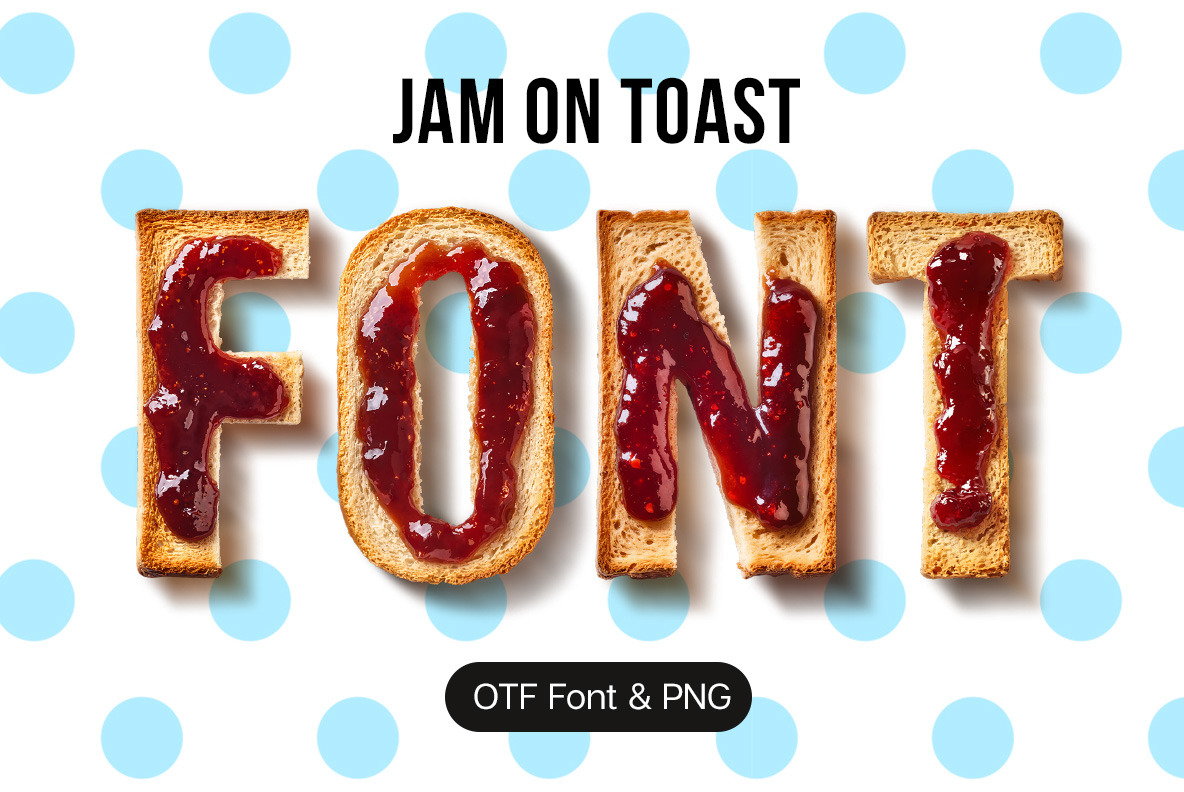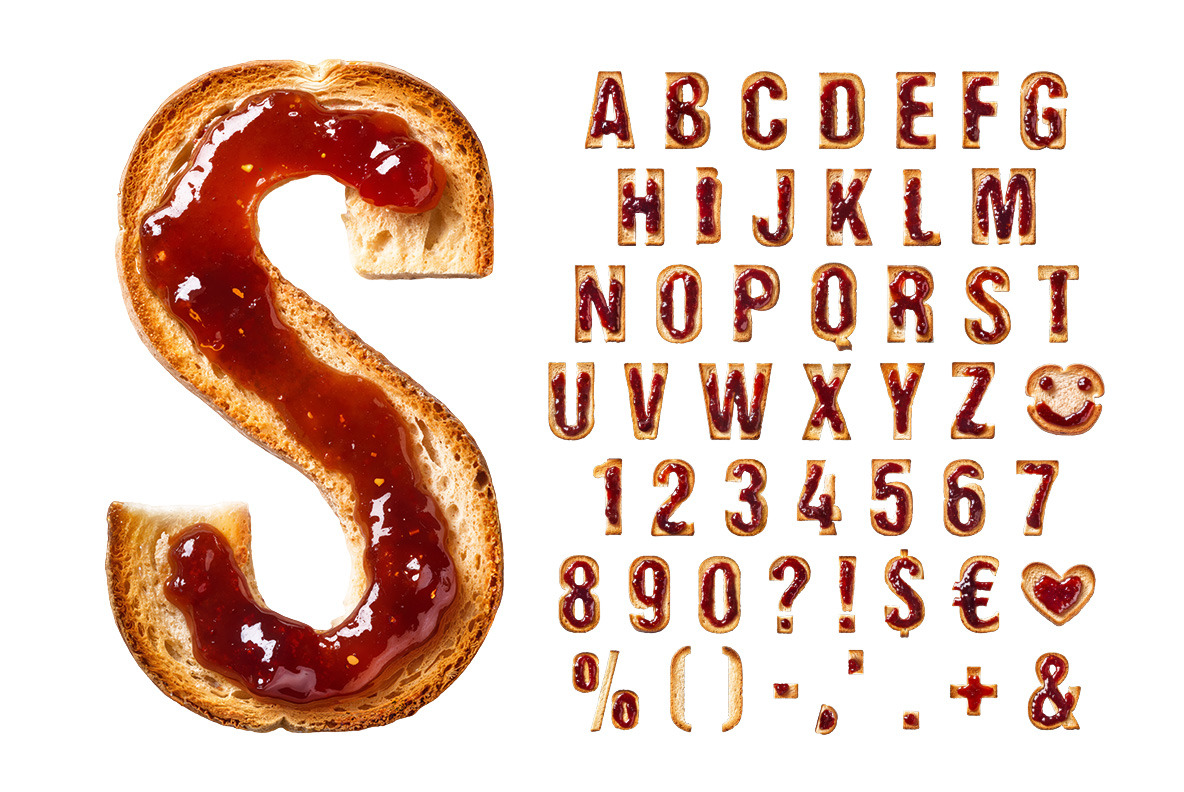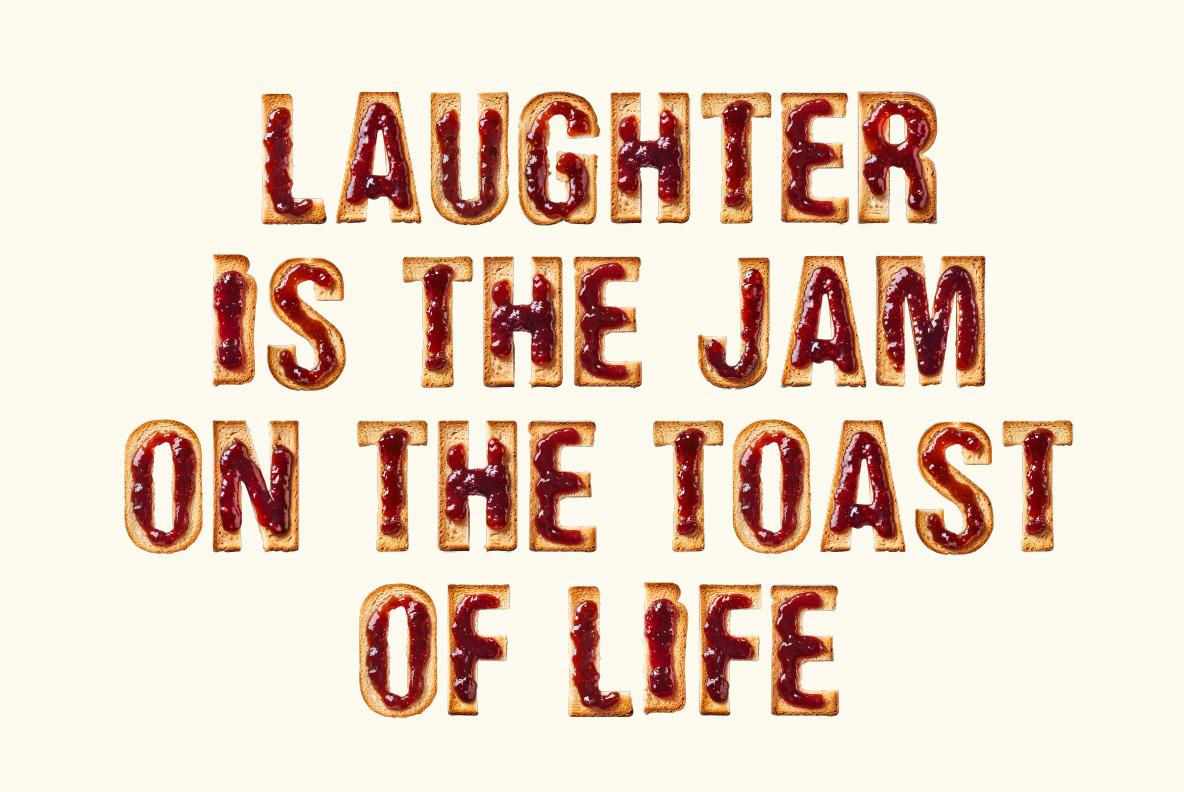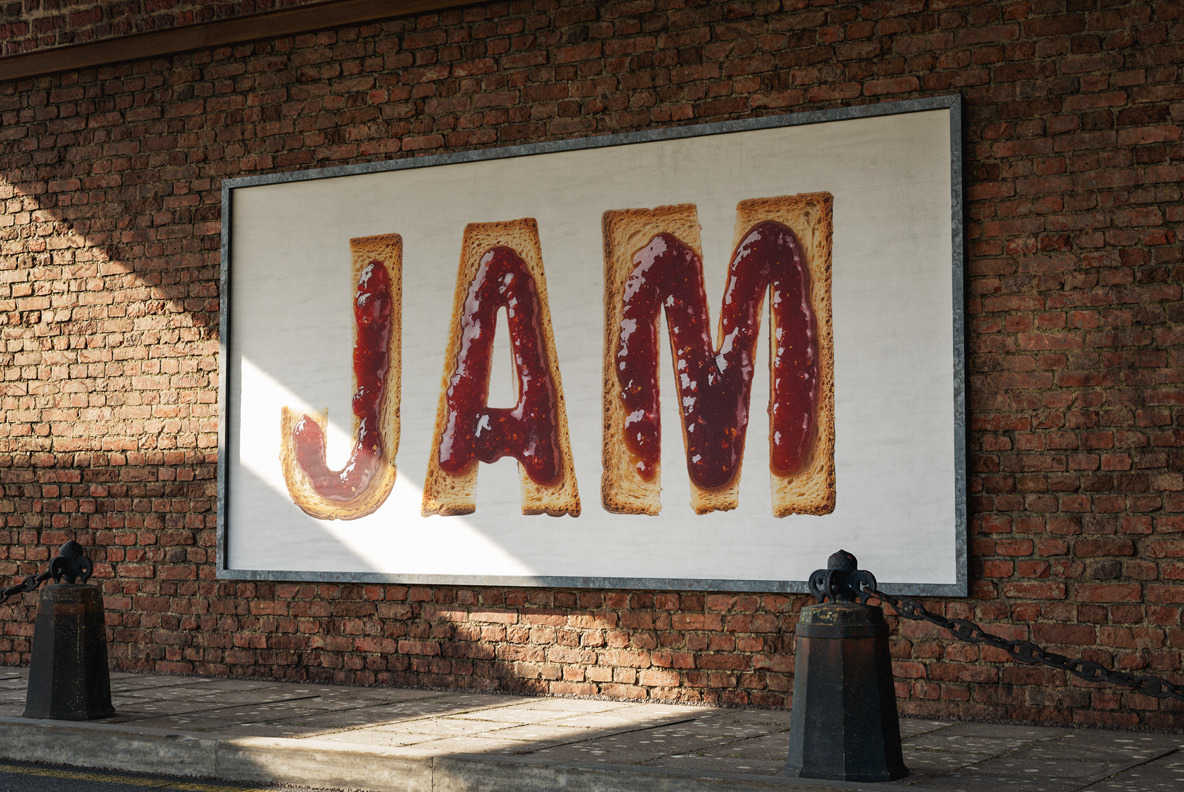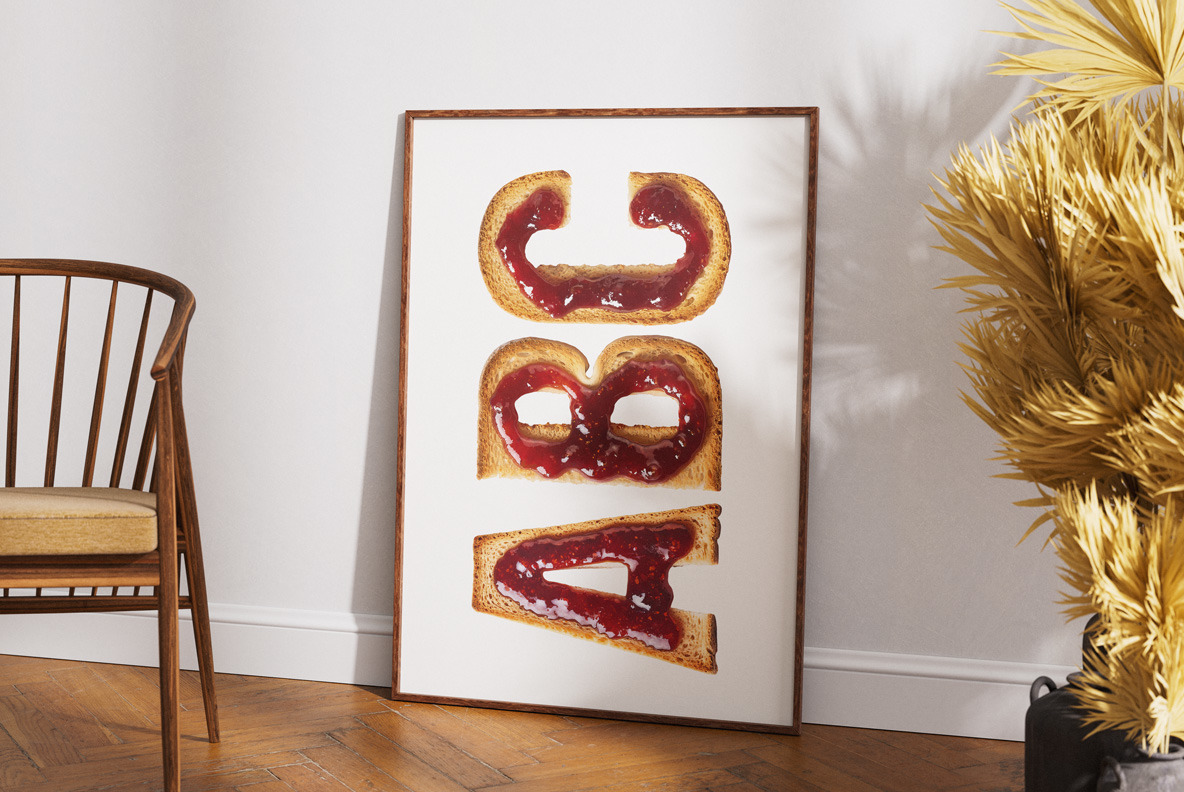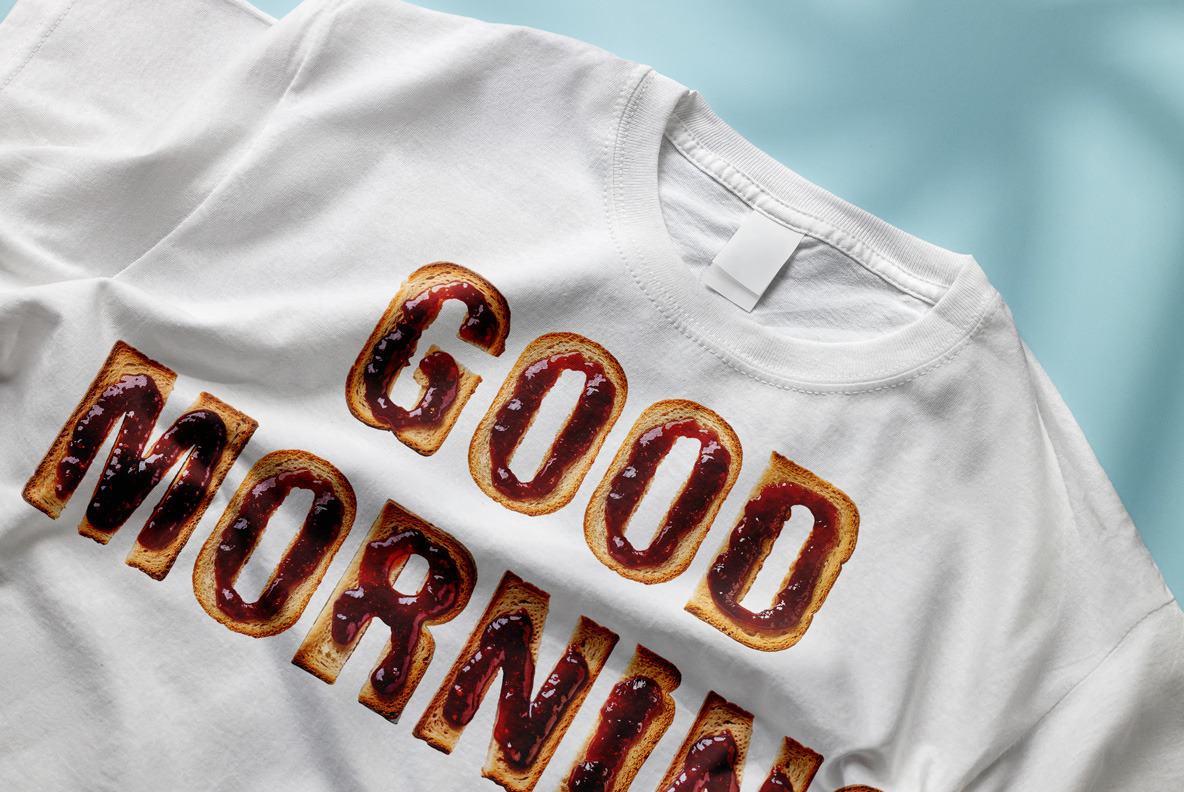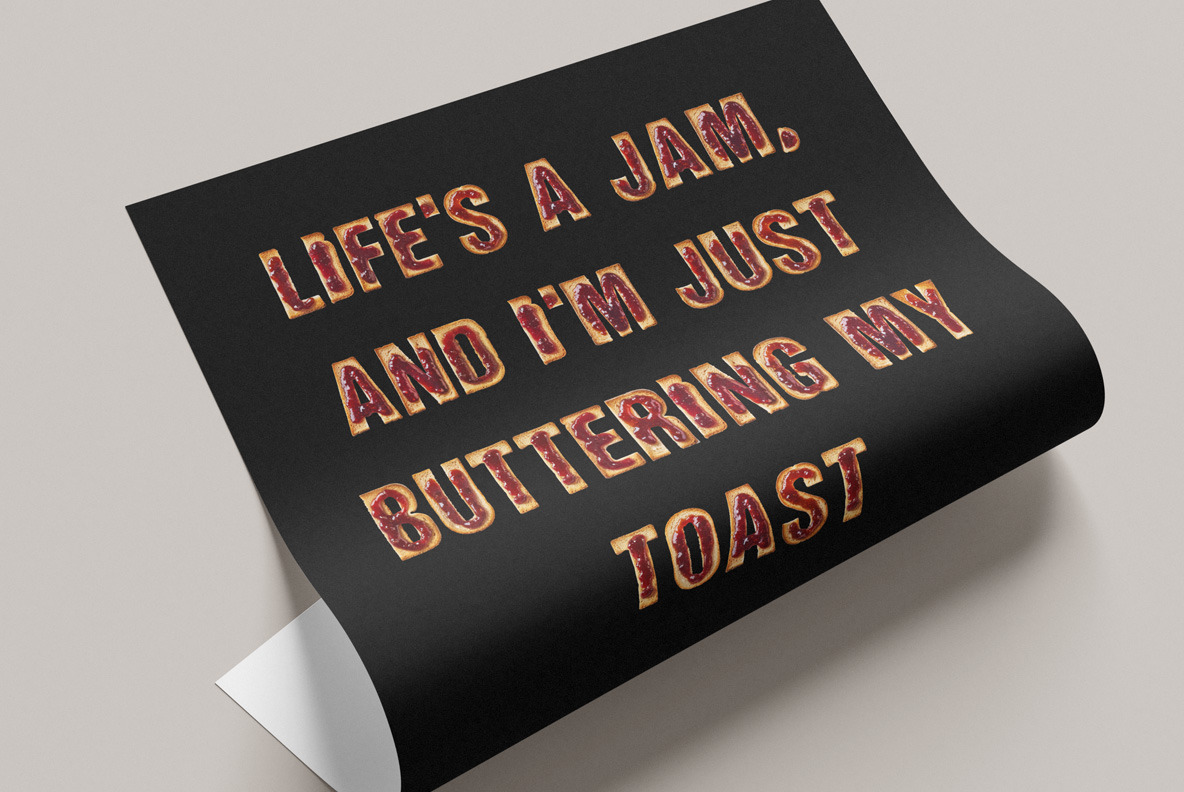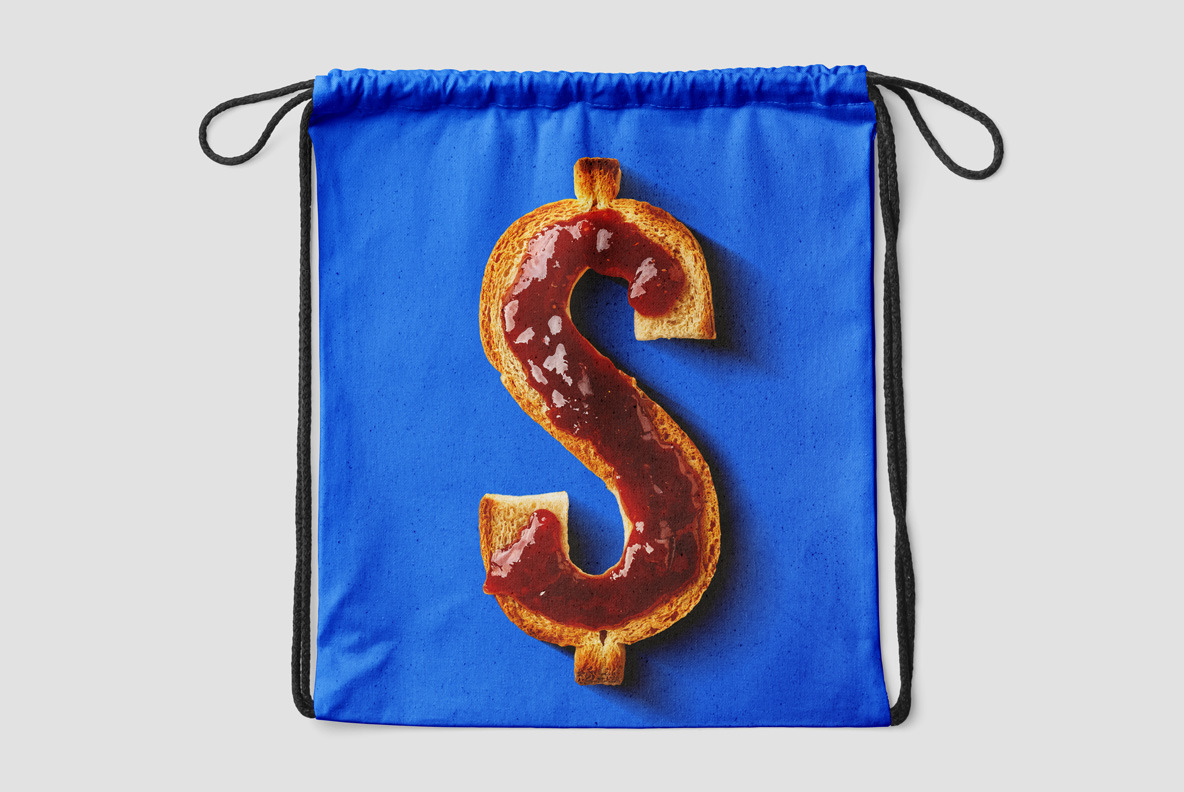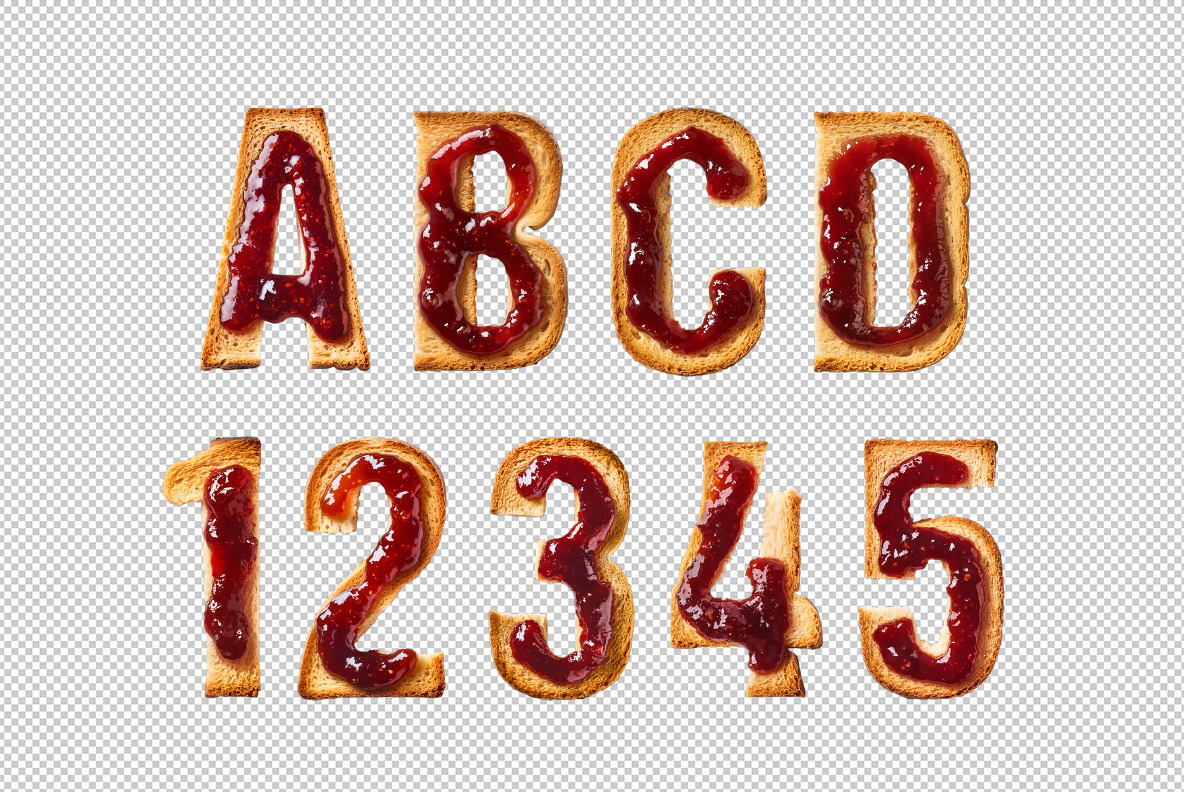
Jam on Toast Font
Jam on Toast Font is a playful and deliciously creative typeface made from realistic spreads of jam on toast. Each letter drips with sweetness, adding a fun, food-inspired twist to any design. Perfect for quirky projects, this high-definition OpenType font looks best in jam-packed layouts!
A high definition OpenType Font. Contains uppercase characters, numerals and basic punctuation. (Draw height roughly 800 pixels). All letters and glyphs that comprises this font you can see on the preview.
Others : ! ? - . ' $ € % &